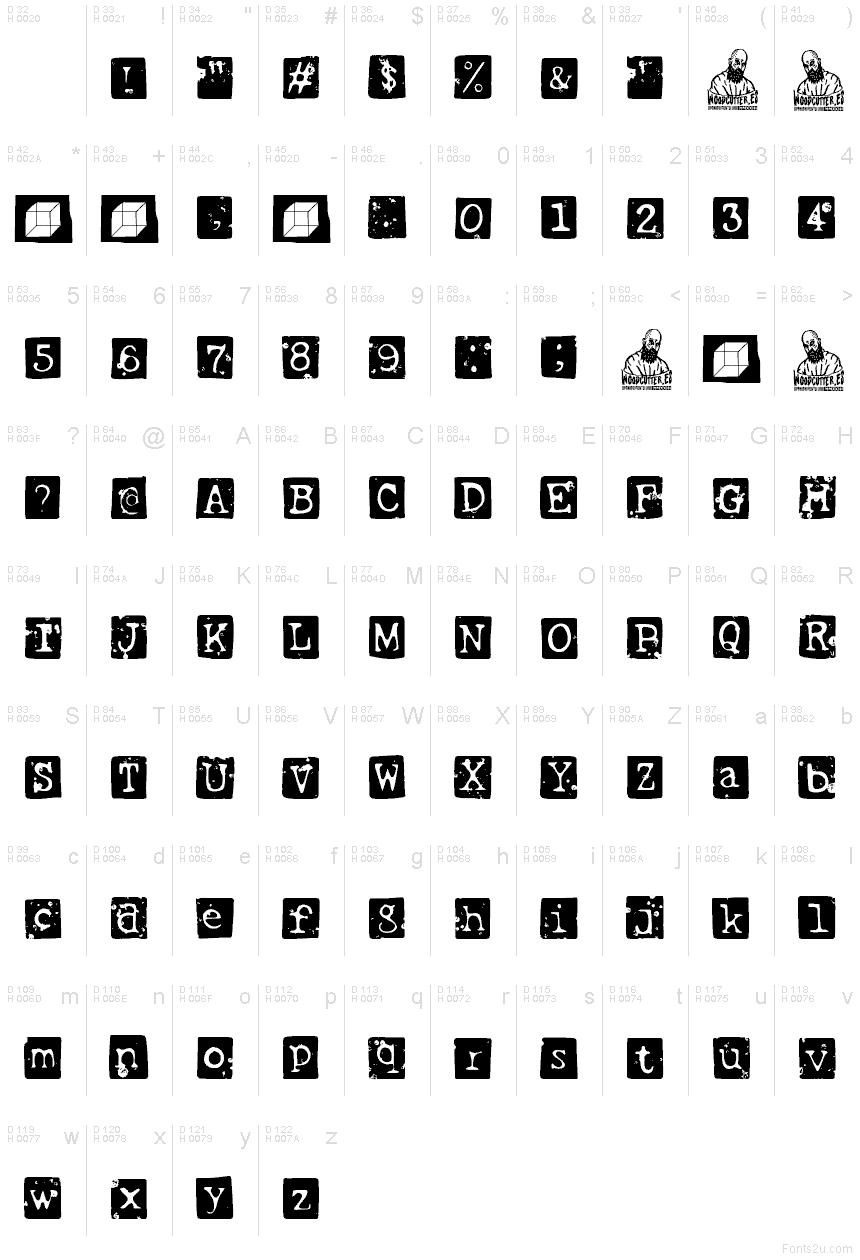
Cuadrado Numero 13
Cuadrado Numero 13 font by Woodcutter is a display typeface with an eroded, negative style. The retro font features a typewriter-style, distressed texture and monospaced appearance that add to its vintage aesthetic. High in contrast, the letters leave visual noise positioned on a square grid in black with white details.
The free display font is excellent for movie posters, album covers, video games graphics interface design, t-shirt prints, and branding projects. Its unique composition makes it an interesting choice for editorial design purposes: magazines or newspaper segments of titles or subtitles.